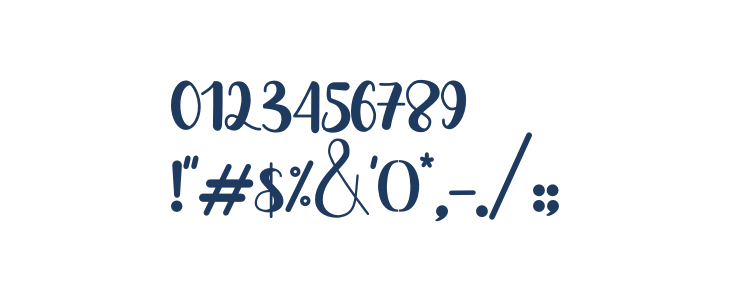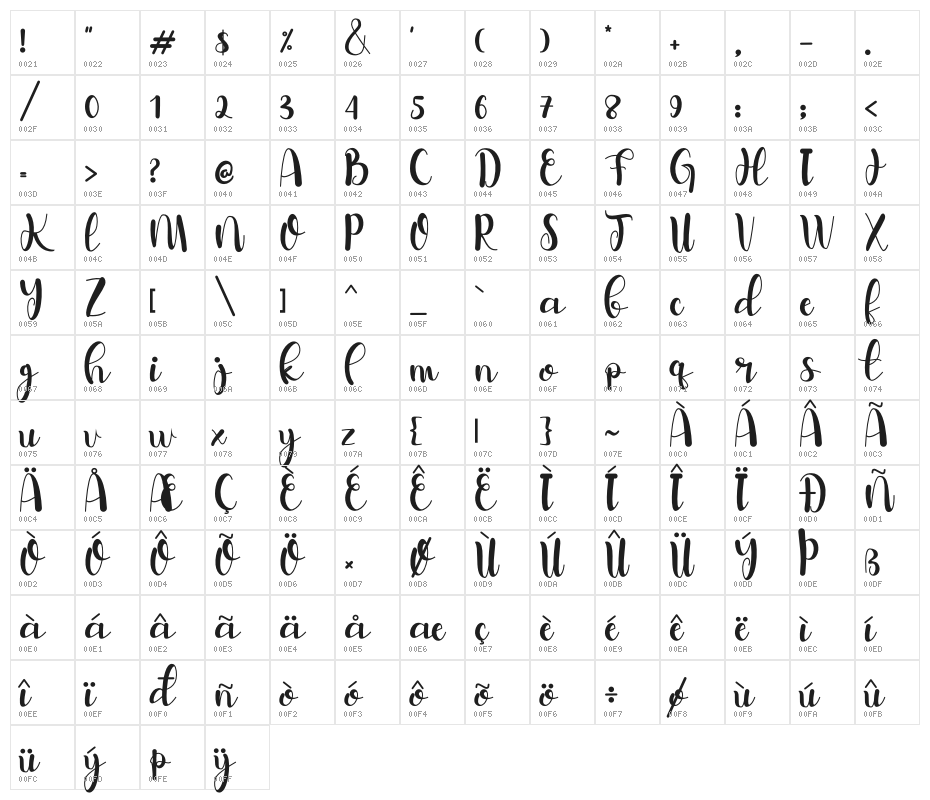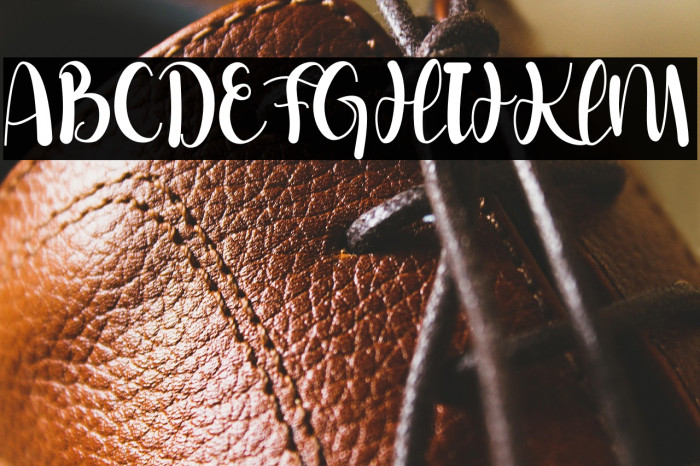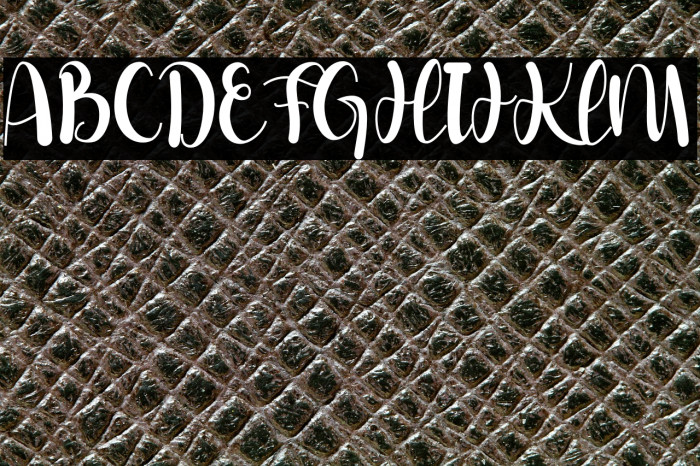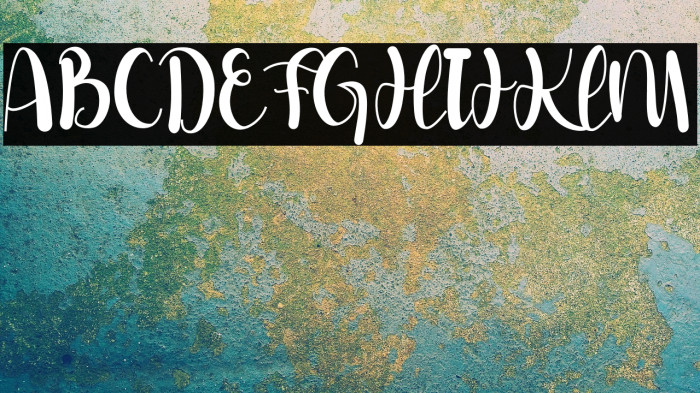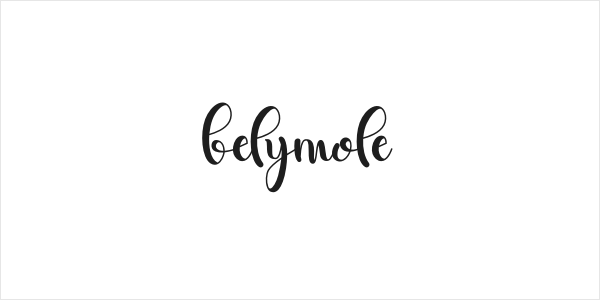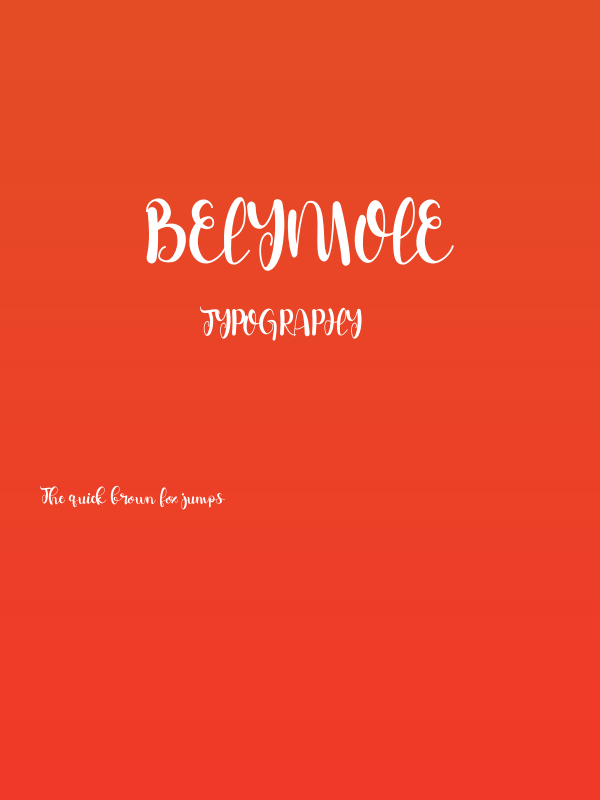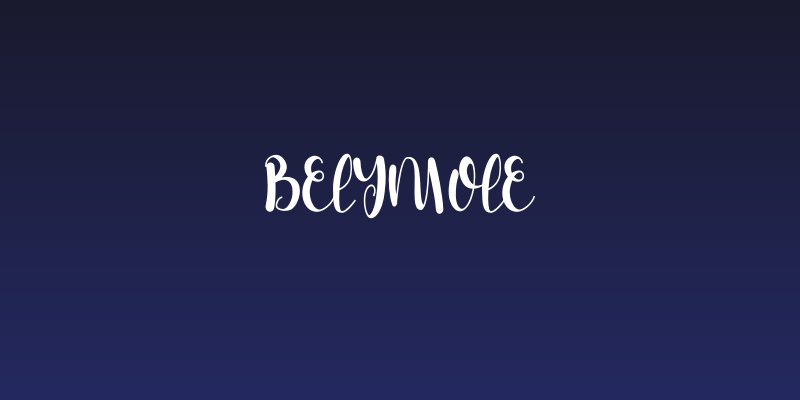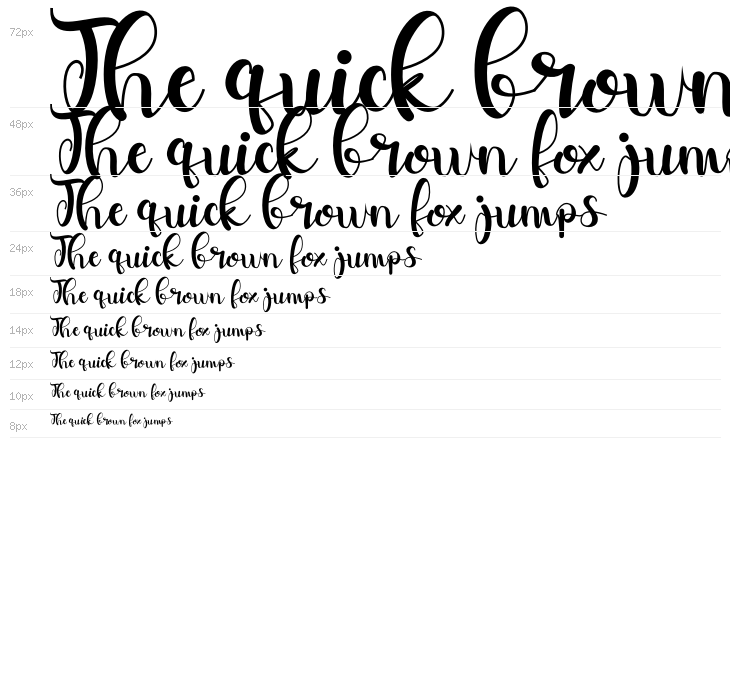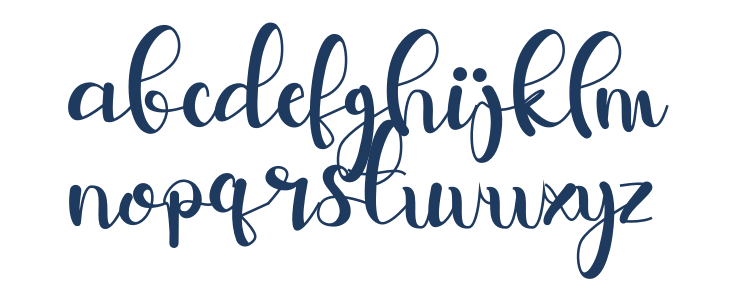
belymole Font
belymole Description
This font exhibits a lively and expressive handwritten style, characterized by its fluid and dynamic strokes. The uppercase letters are bold and sweeping, with a playful flair that adds a sense of movement and energy. The lowercase letters maintain this fluidity, with some characters featuring unique loops and curls that enhance the font's whimsical nature. The numerals are consistent with the overall style, offering a cohesive look. Special characters are creatively integrated, maintaining the font's artistic and decorative appeal. This font is perfect for projects that require a personal and artistic touch.
| Use Case | Logos, Headlines, Invitations |
| Proposed Projects | Ideal for wedding invitations, greeting cards, branding projects, and artistic posters. |